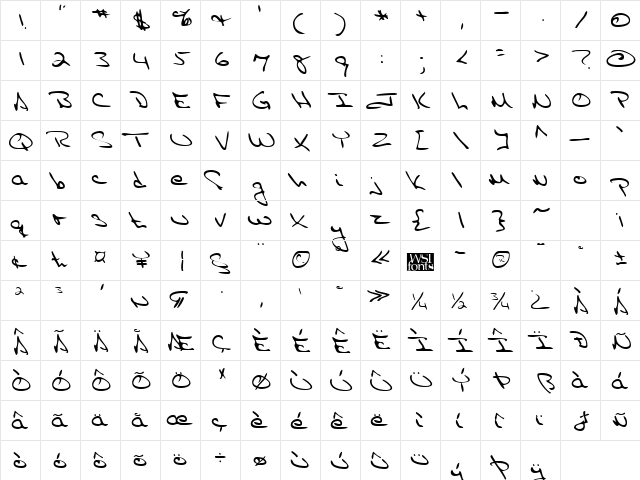
EricasHand Regular Font Preview
EricasHand Regular
EricasHand Regular Font Details
Design Context for EricasHand Typeface
EricasHand brings a calligraphic fluidity to the page — its connecting strokes and expressive curves give it an unmistakably human quality.
Font Pairing: Combine EricasHand with a simple geometric sans for maximum contrast — the tension between flowing curves and clean structure is a classic typographic pairing.
Pro Tip: Pair EricasHand with a clean sans-serif for supporting text. The contrast between fluid script and geometric structure creates an elegant typographic hierarchy.